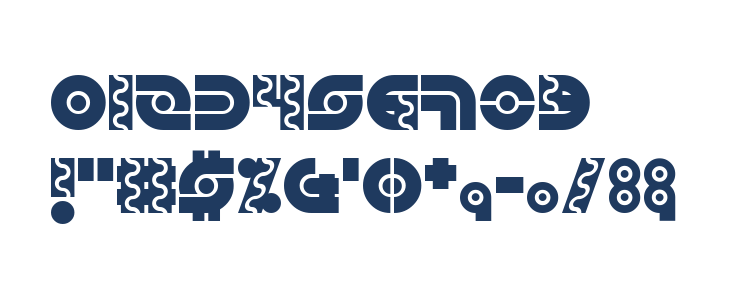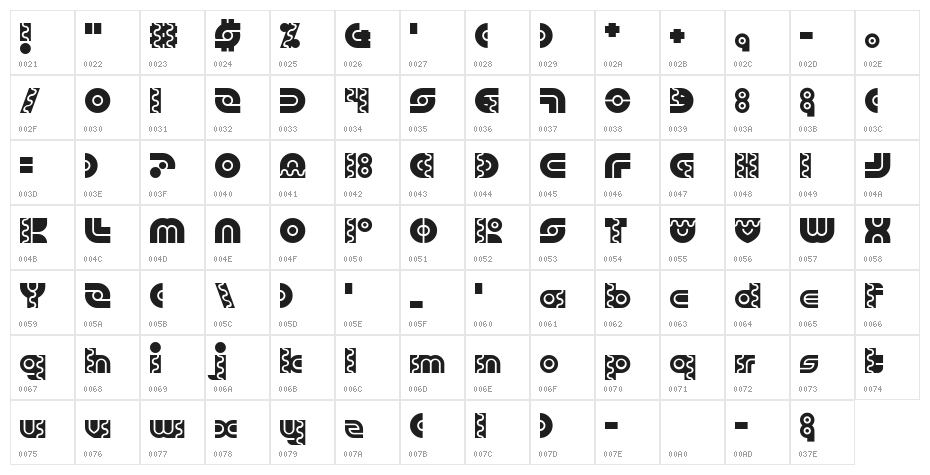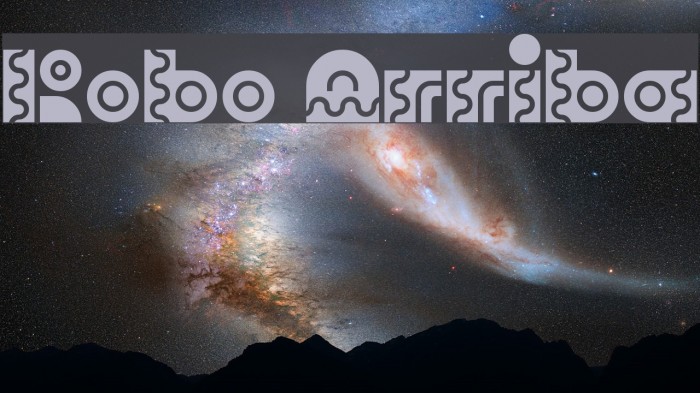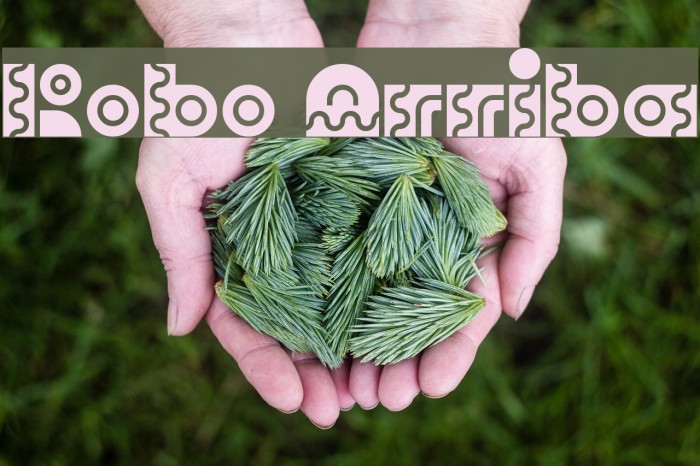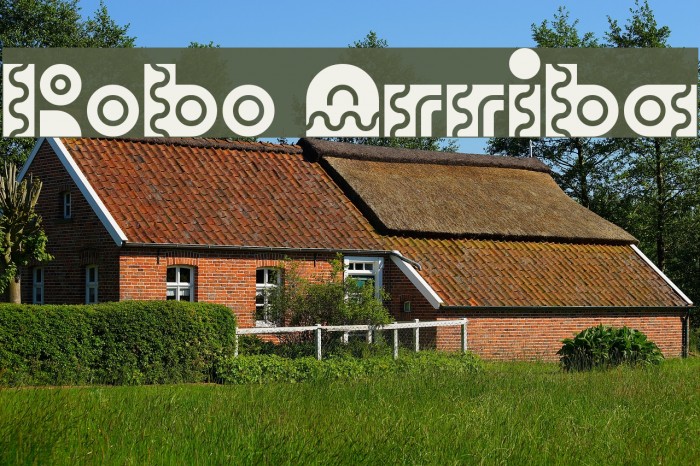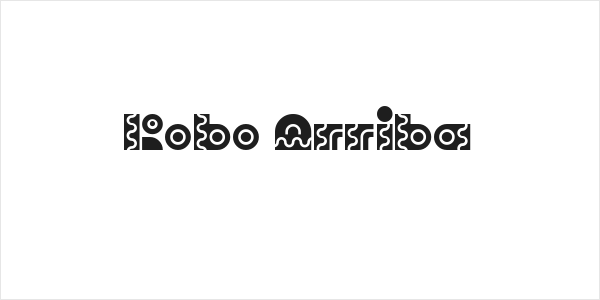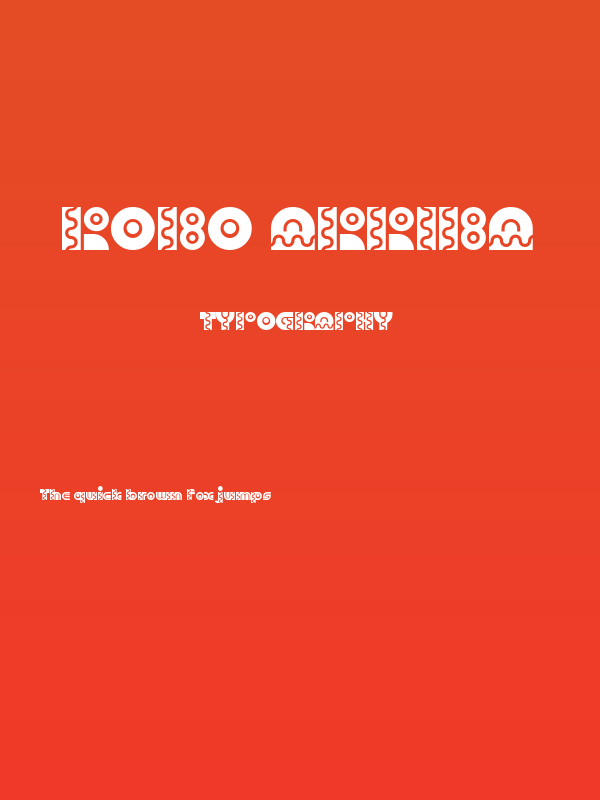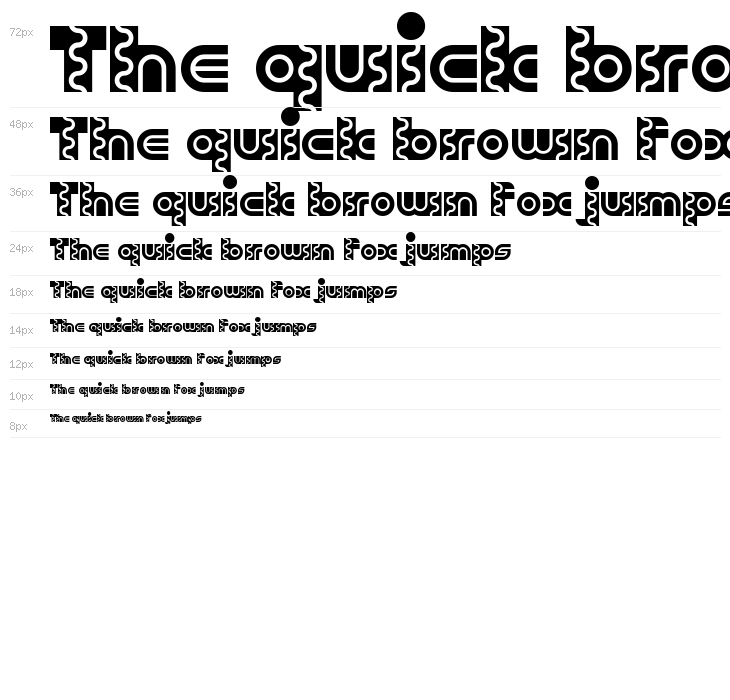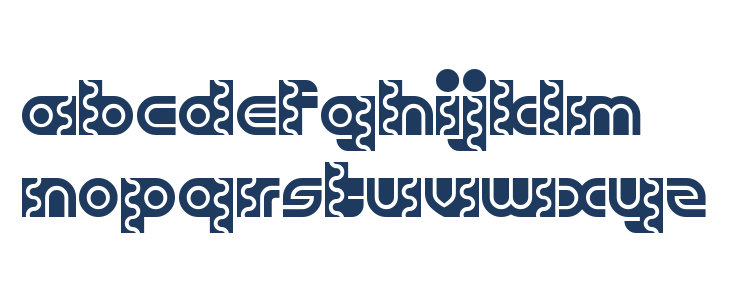
Robo Arriba Font
Robo Arriba Description
This font features a bold and futuristic design with intricate, geometric patterns integrated into each character. The letters are constructed with thick strokes and unique, decorative elements that give them a robotic and technological appearance. The uppercase and lowercase letters maintain a consistent style, with symmetrical and angular forms that create a cohesive look. Numbers and special characters are equally stylized, incorporating the same design motifs, making them stand out with a strong visual impact. This font is ideal for projects that require a modern and edgy aesthetic.
| Overall Style | Futuristic, Technological |
| Proposed Projects | Ideal for sci-fi themed designs, technology branding, video game titles, and futuristic posters. |